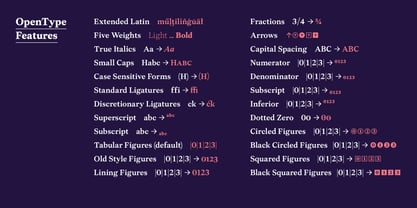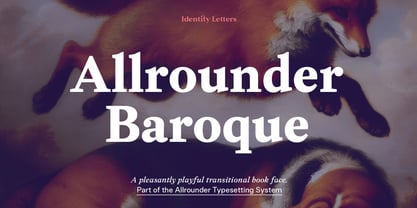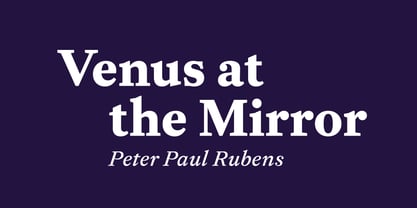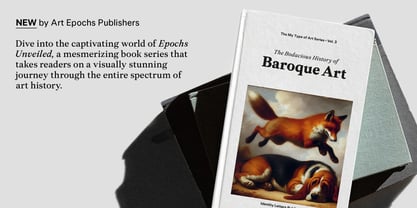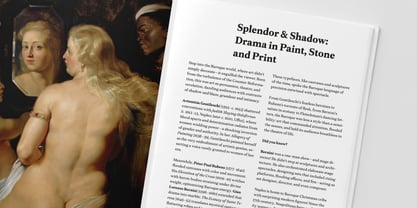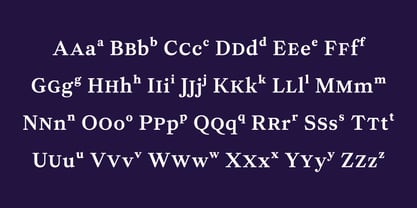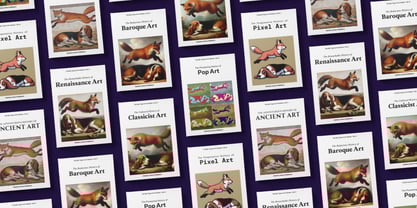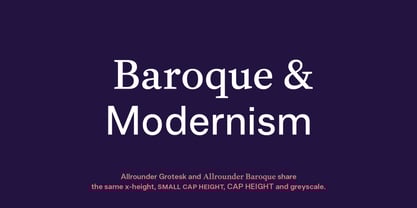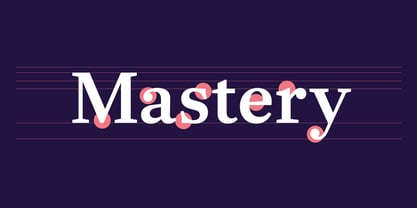
Allrounder Baroque
by Identity Letters
The Allrounder Baroque Font Family was designed by Moritz Kleinsorge and published by Identity Letters. Allrounder Baroque contains 10 styles and family package options. More about this family
Allrounder Baroque is a transitional serif member of the Allrounder superfamily. A playful and dynamic medium-contrast typeface, its lush shapes guide the reader’s eye across the page.
Like its famous Baroque-era ancestors penned by van Dijck, Fleischmann, and Baskerville, Allrounder Baroque is an ideal book typeface. Set large, it’s at home in luxury branding and serious-yet-approachable corporate design.
At 10 styles and 900+ glyphs, with extended language support and OpenType features, Allrounder Baroque brings workhorse qualities to the table. Its vertical metrics and texture match those of the other Allrounder fonts: Combining fonts was never easier than with the Allrounder type system.
Designers: Moritz Kleinsorge
Foundry: Identity Letters